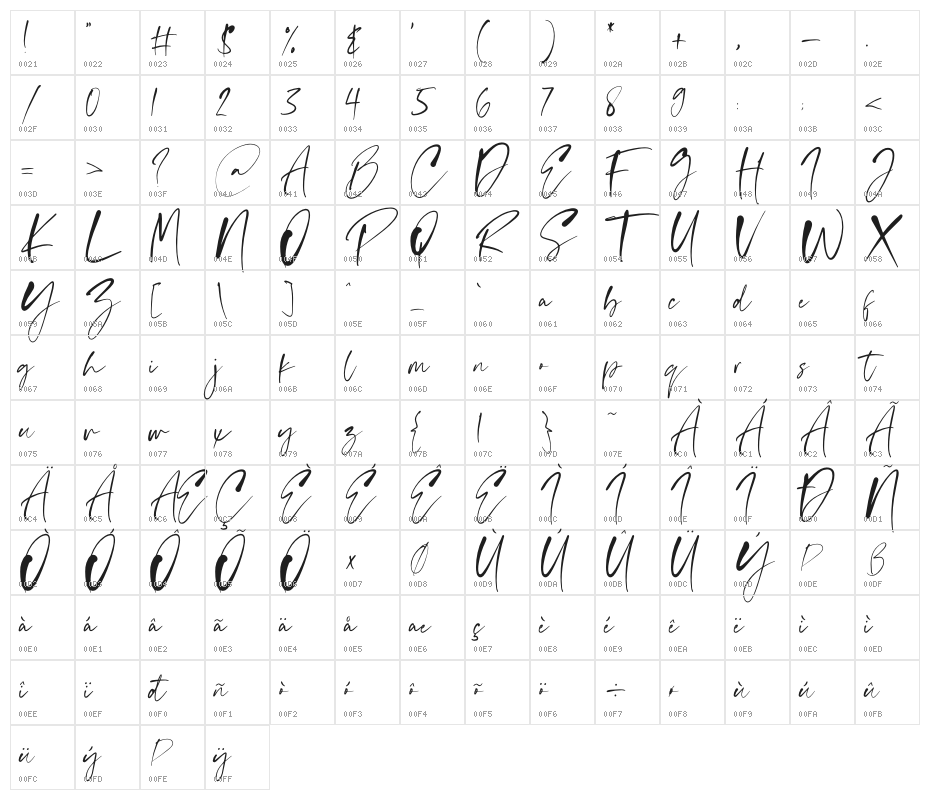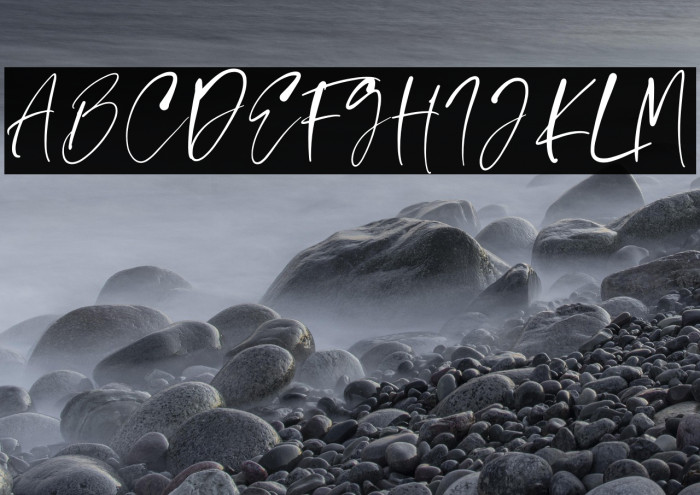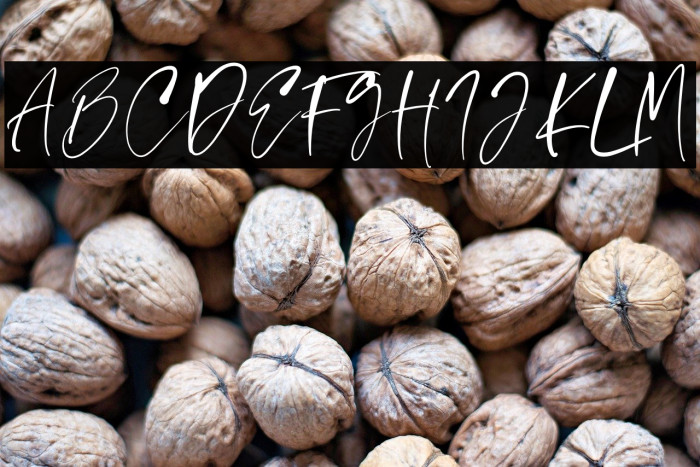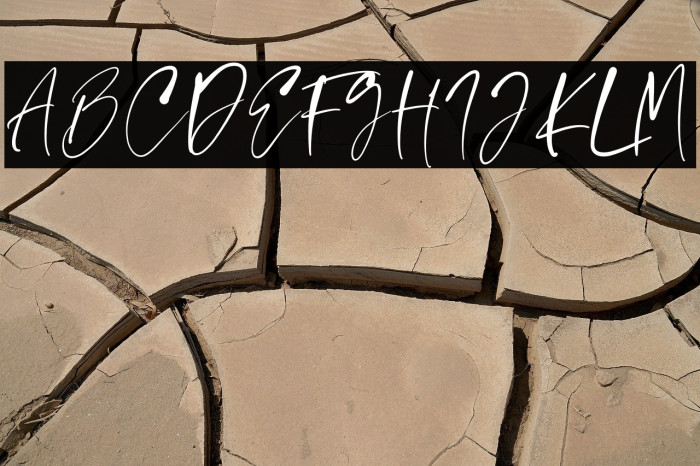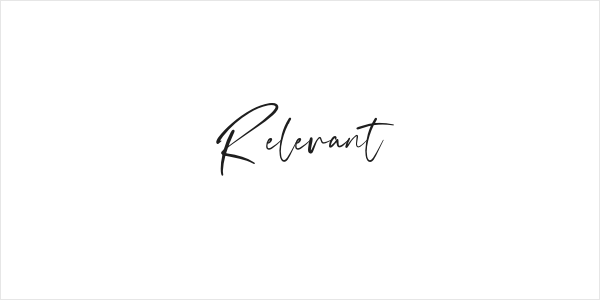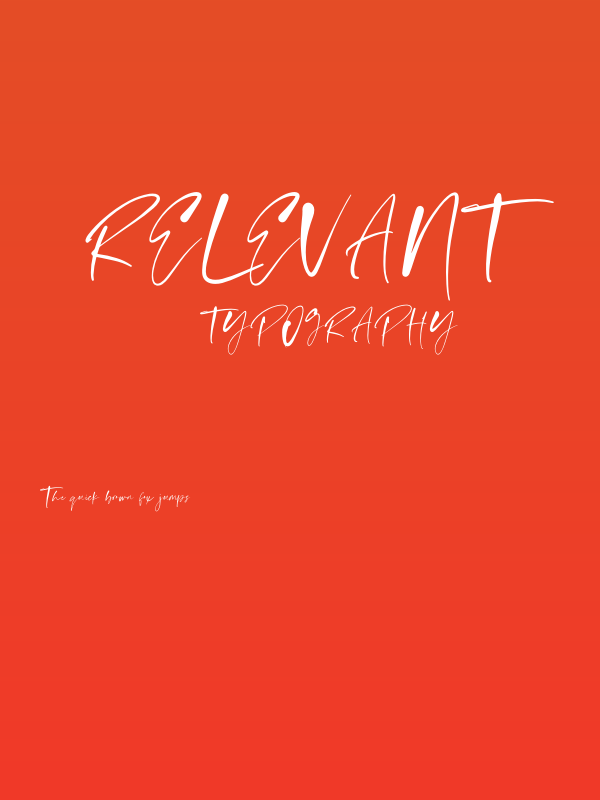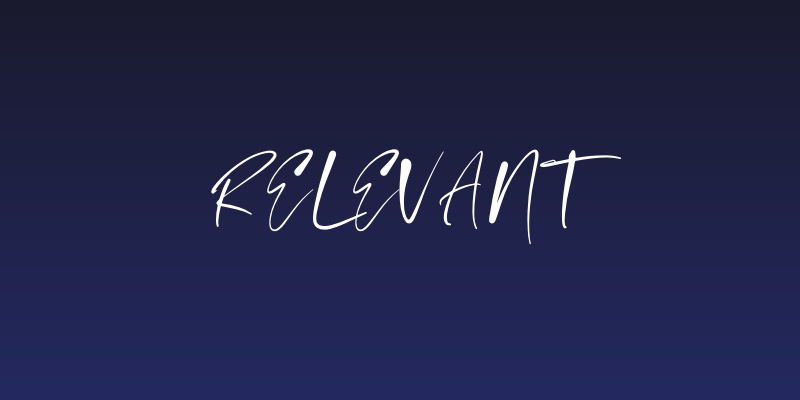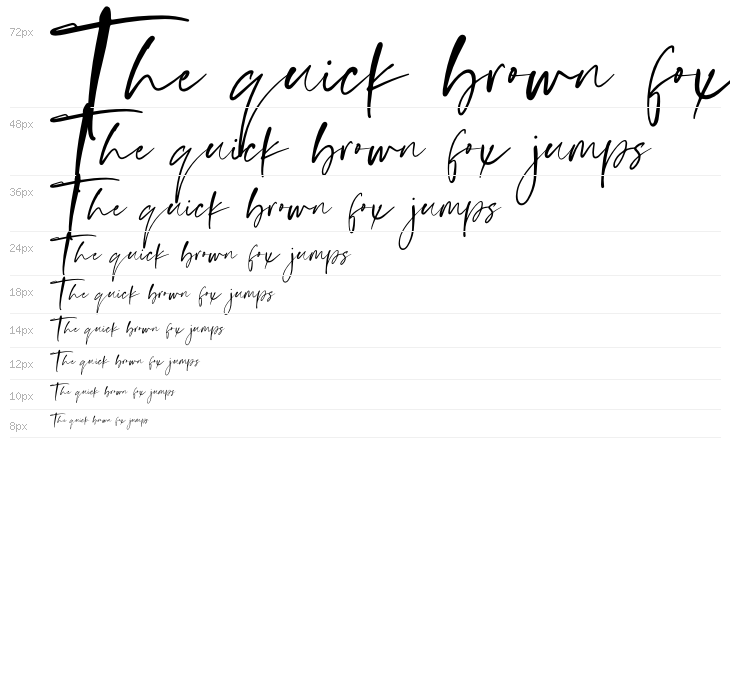
Relevant Font
Relevant Description
This font exudes a dynamic and expressive handwritten style, characterized by its fluid strokes and varying line thickness. The uppercase letters are bold and confident, with a slight slant that adds to the casual yet sophisticated feel. The lowercase letters maintain a consistent flow, enhancing readability while preserving the artistic flair. Numbers are clear and distinct, matching the overall aesthetic. Special characters are creatively integrated, maintaining the font's unique personality. This font is perfect for projects that require a personal touch, such as invitations, greeting cards, or branding materials.
| Use Case | Logos, Headlines, Invitations |
| Proposed Projects | Ideal for invitations, greeting cards, branding, and creative projects requiring a personal touch. |